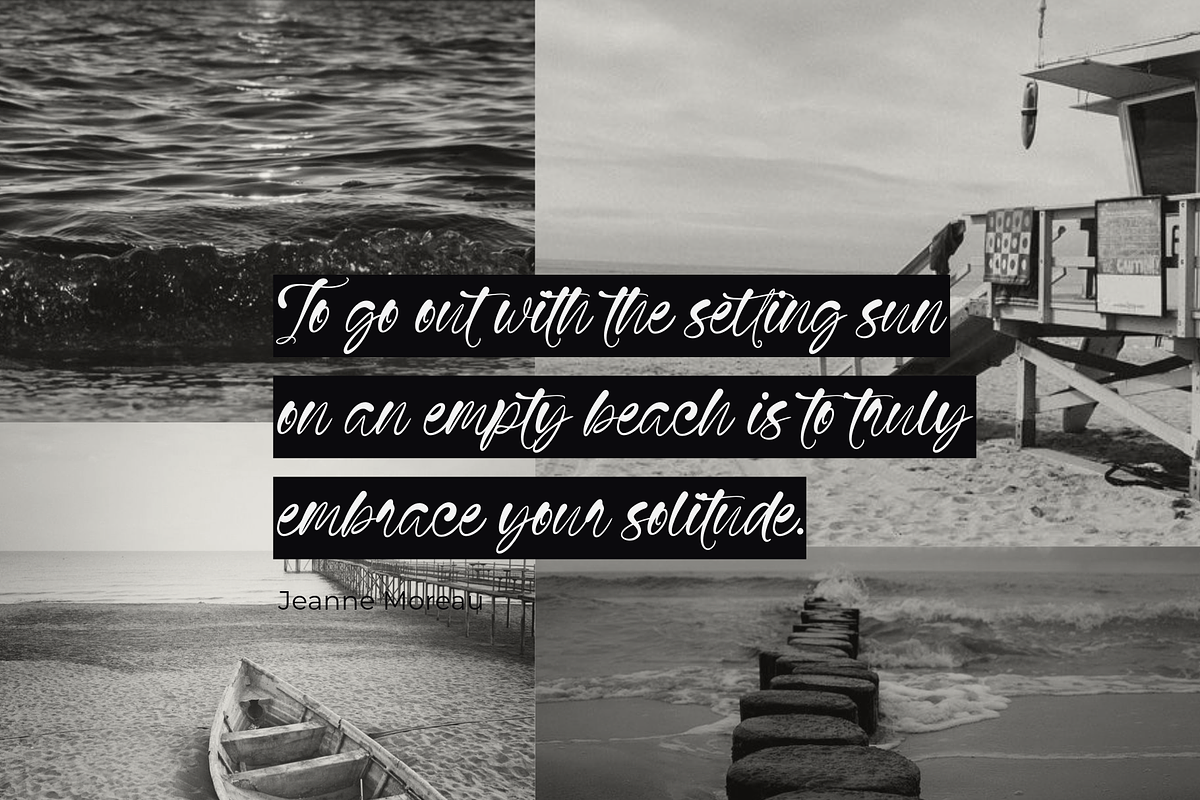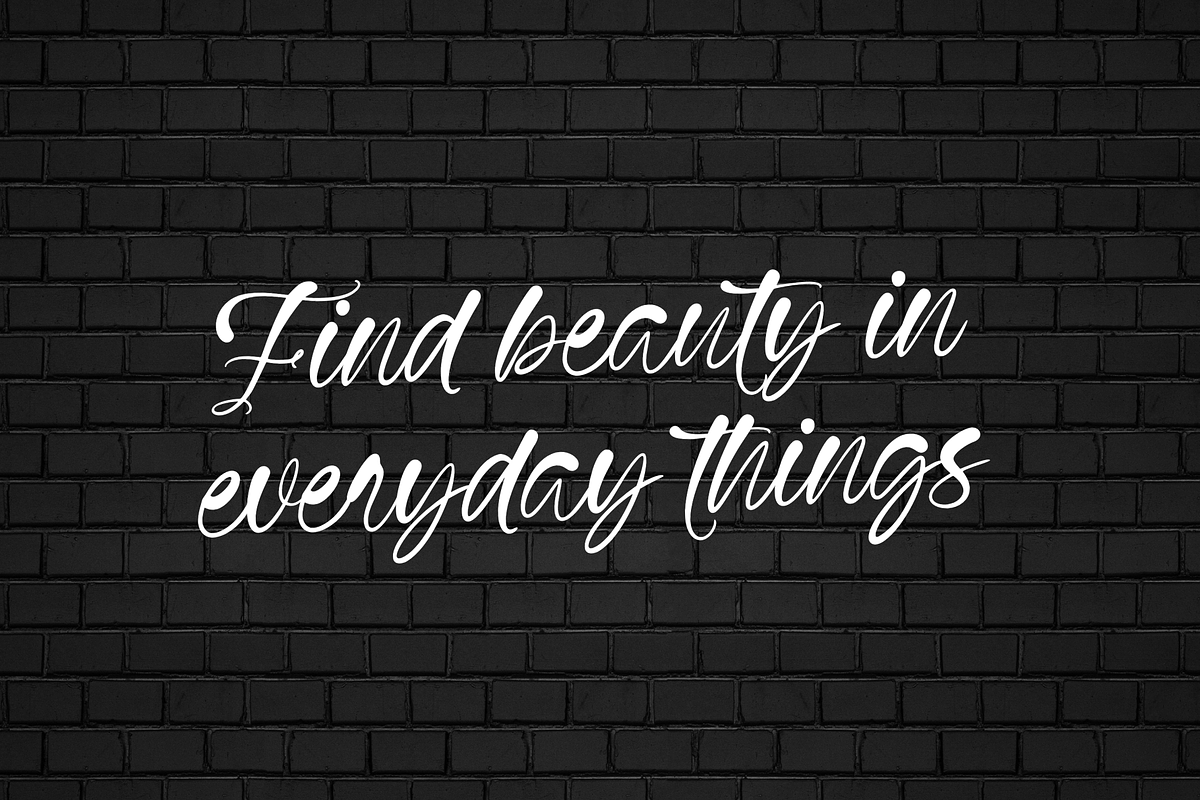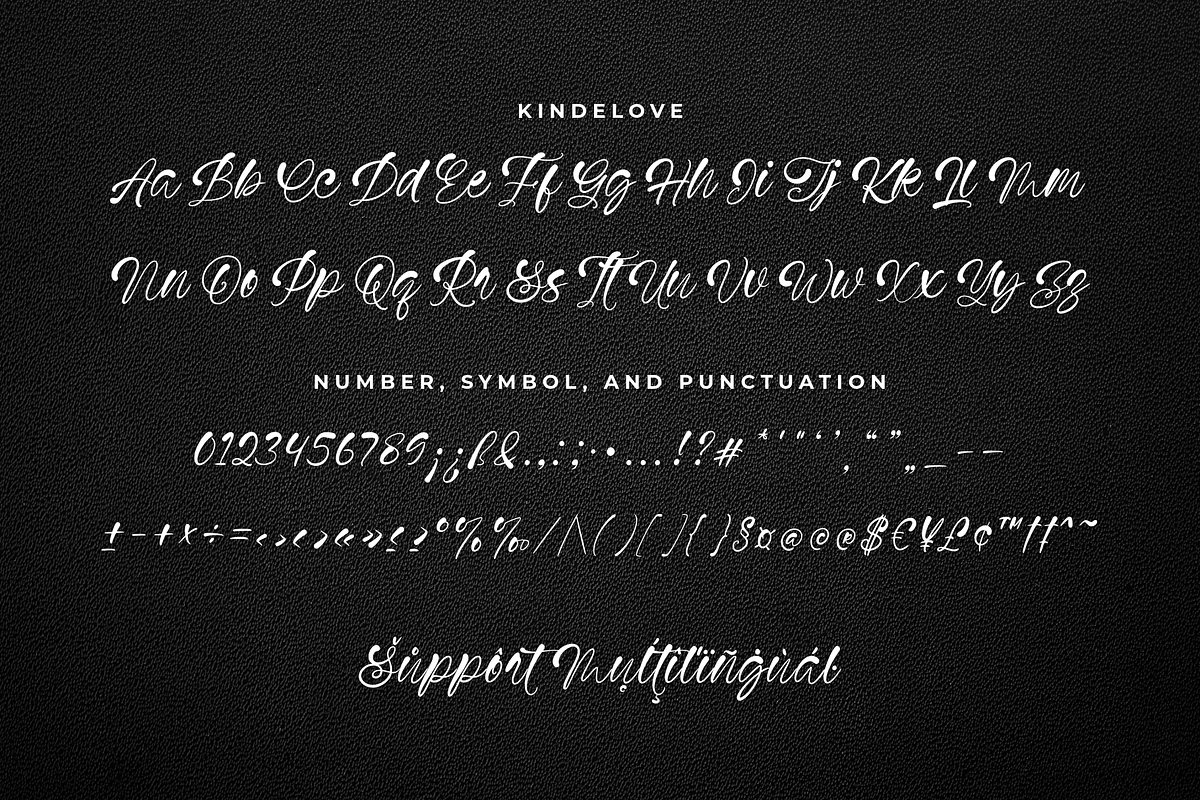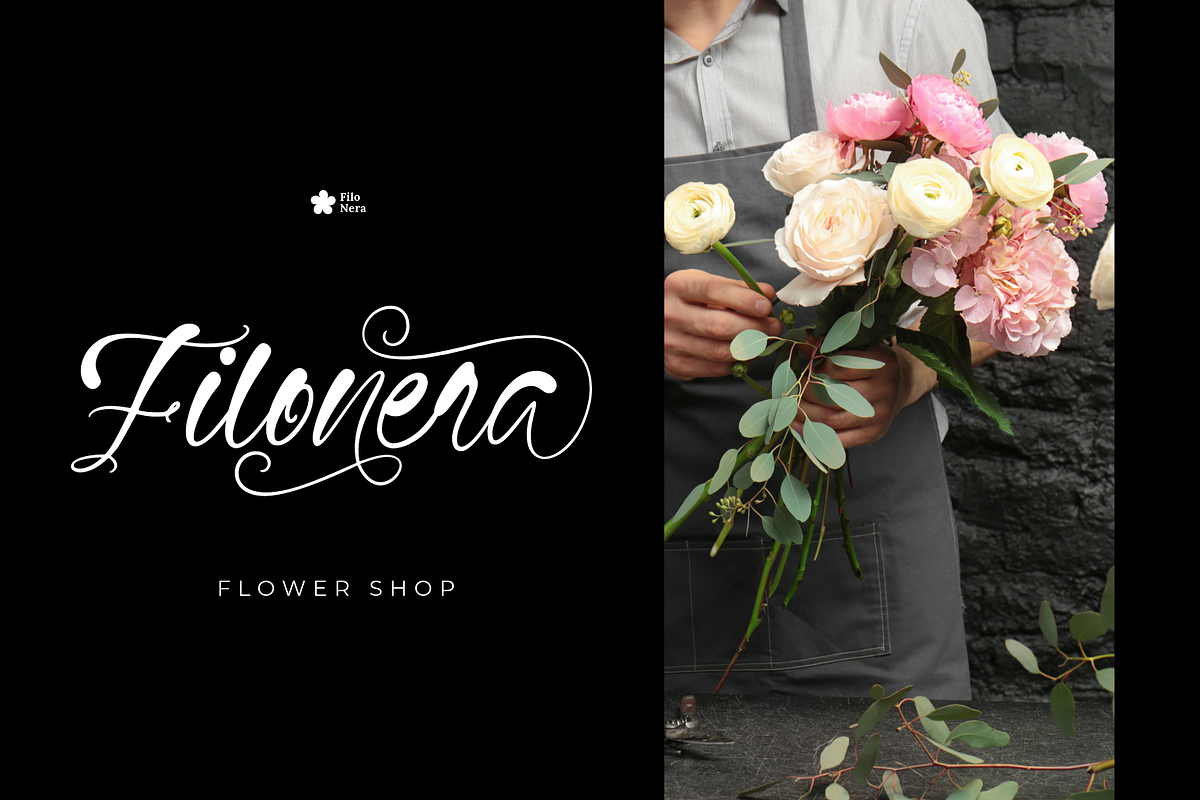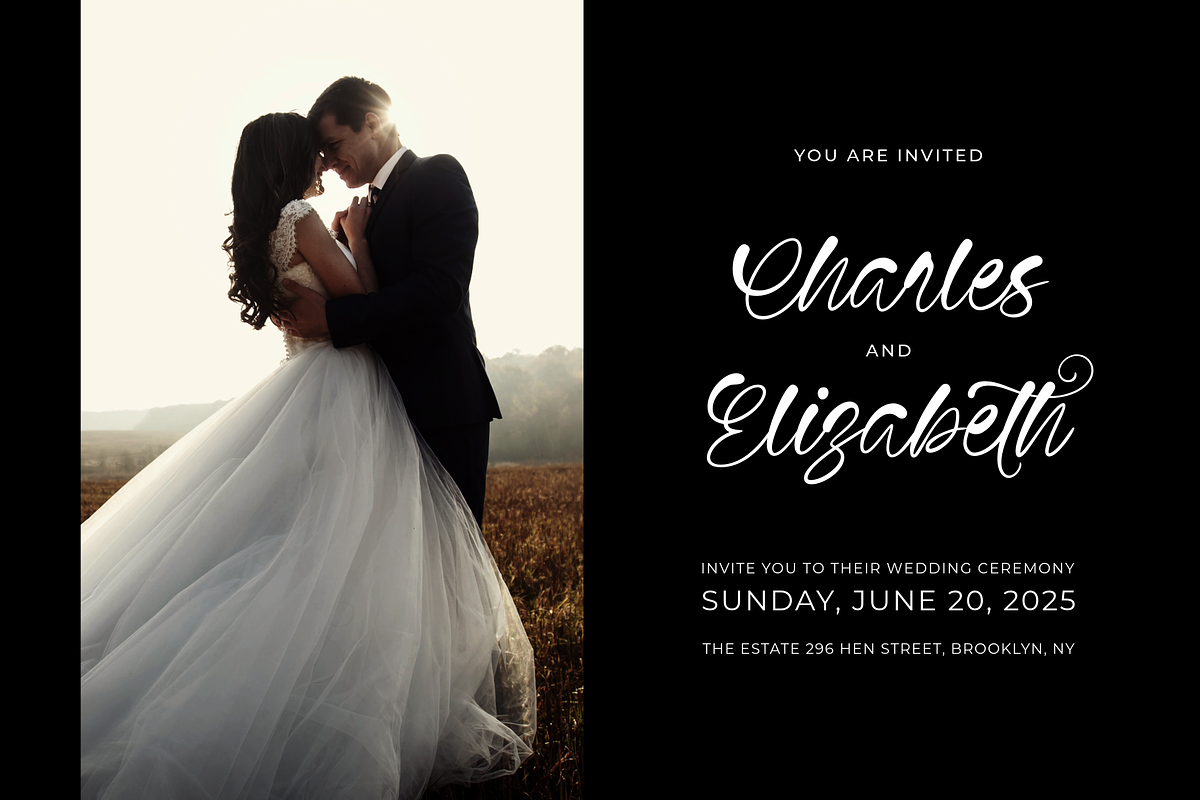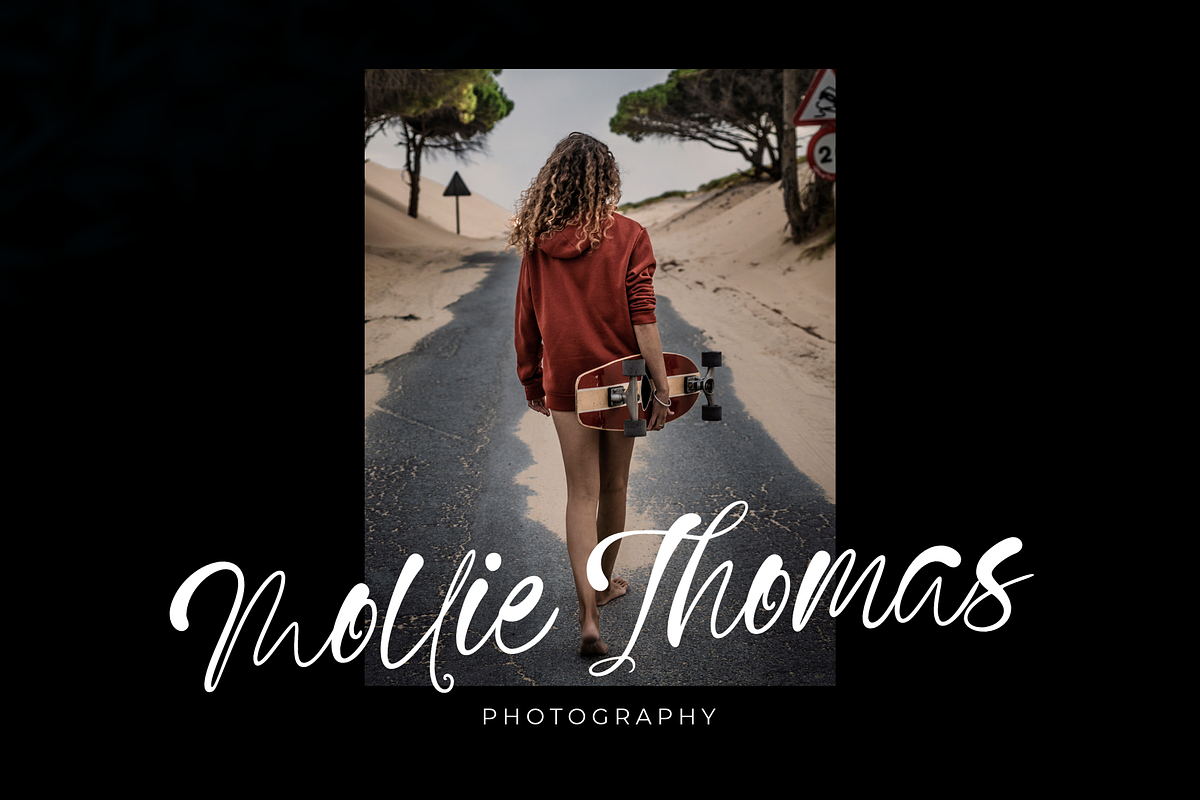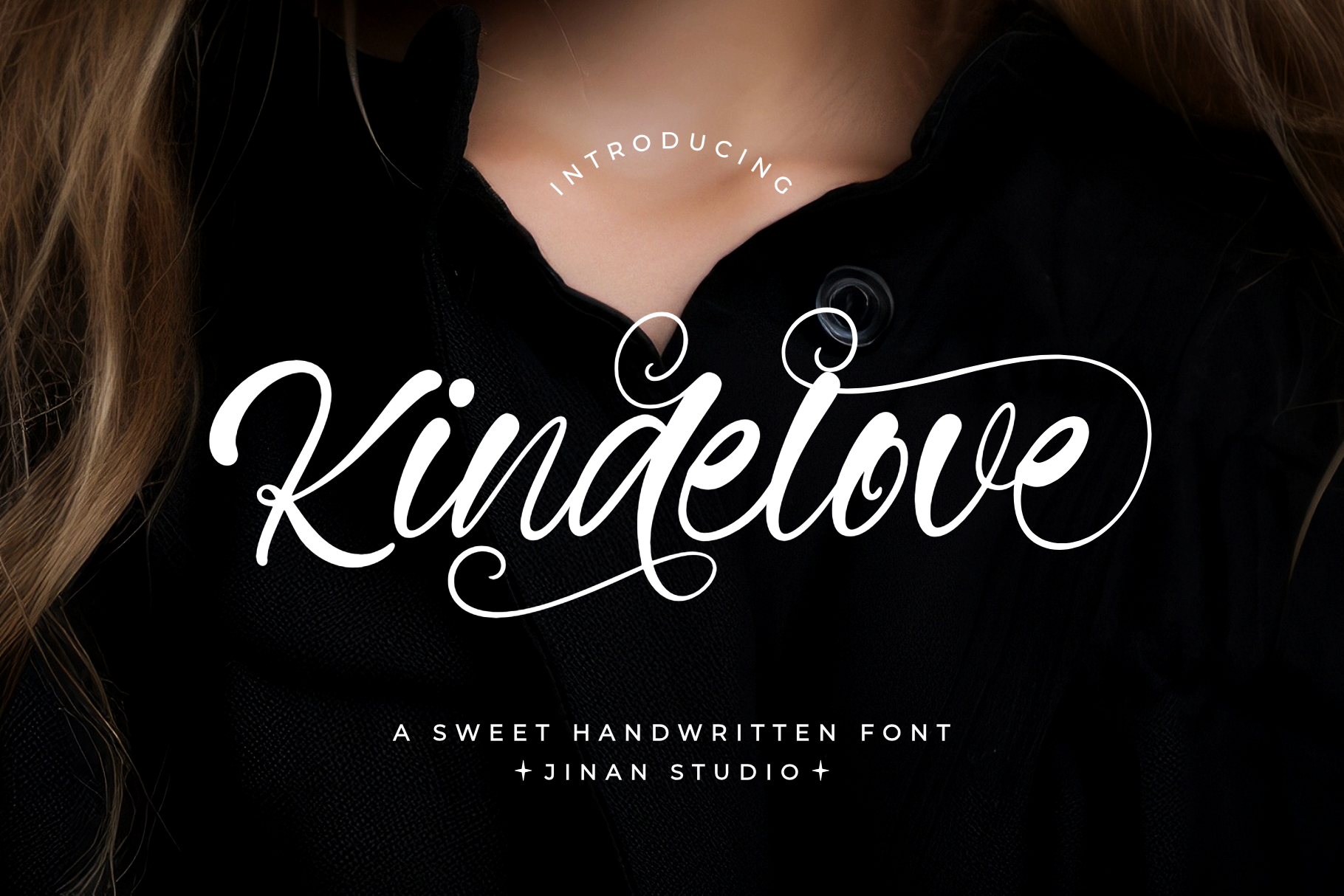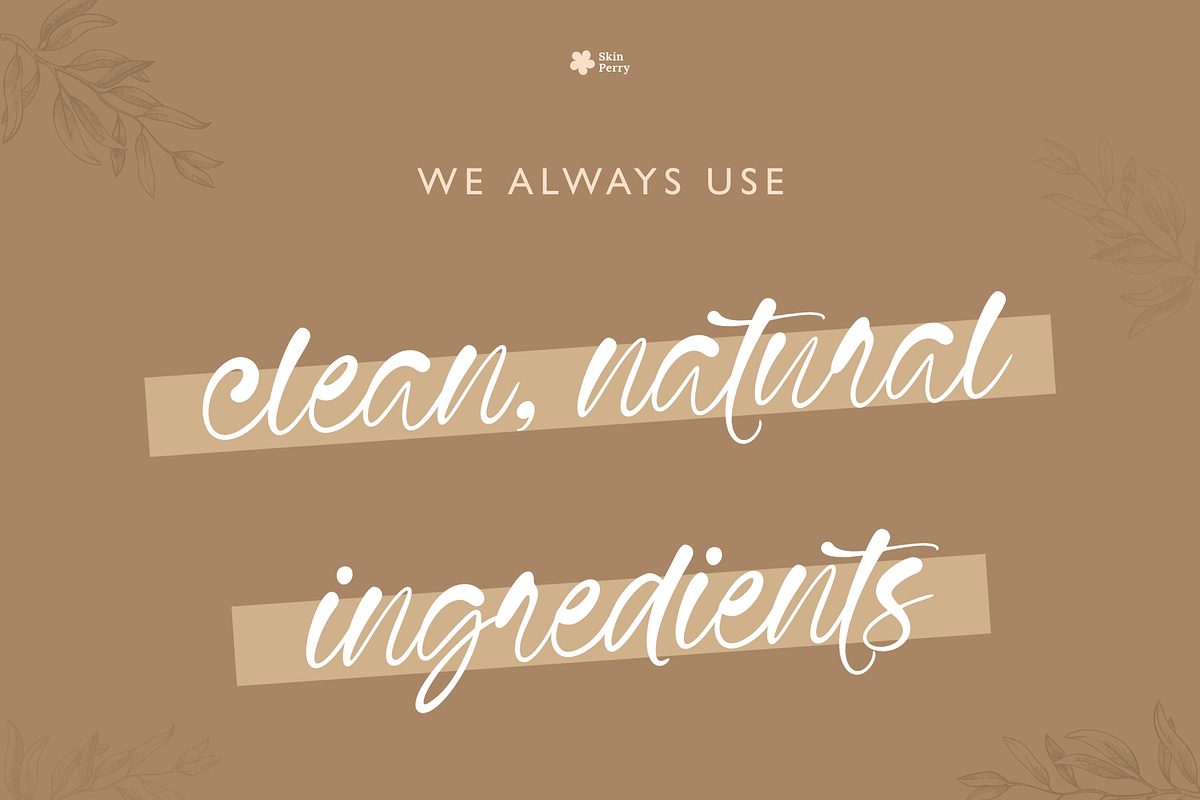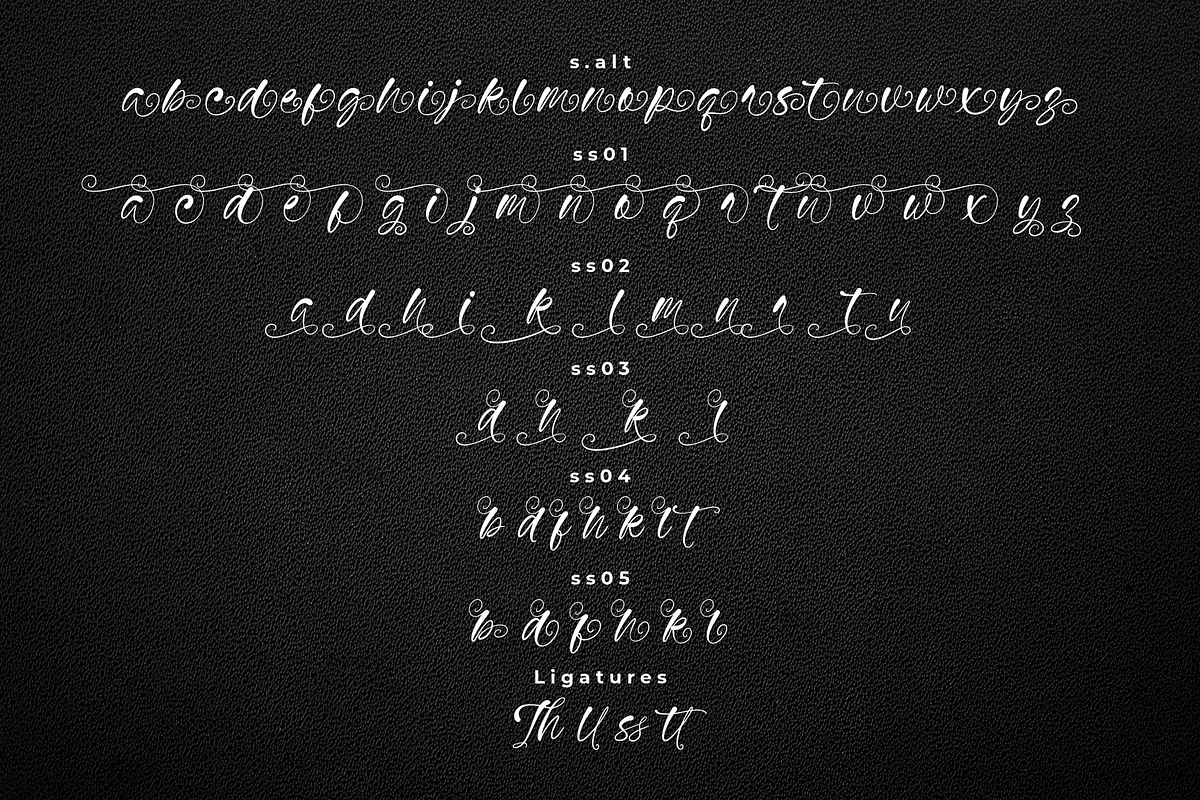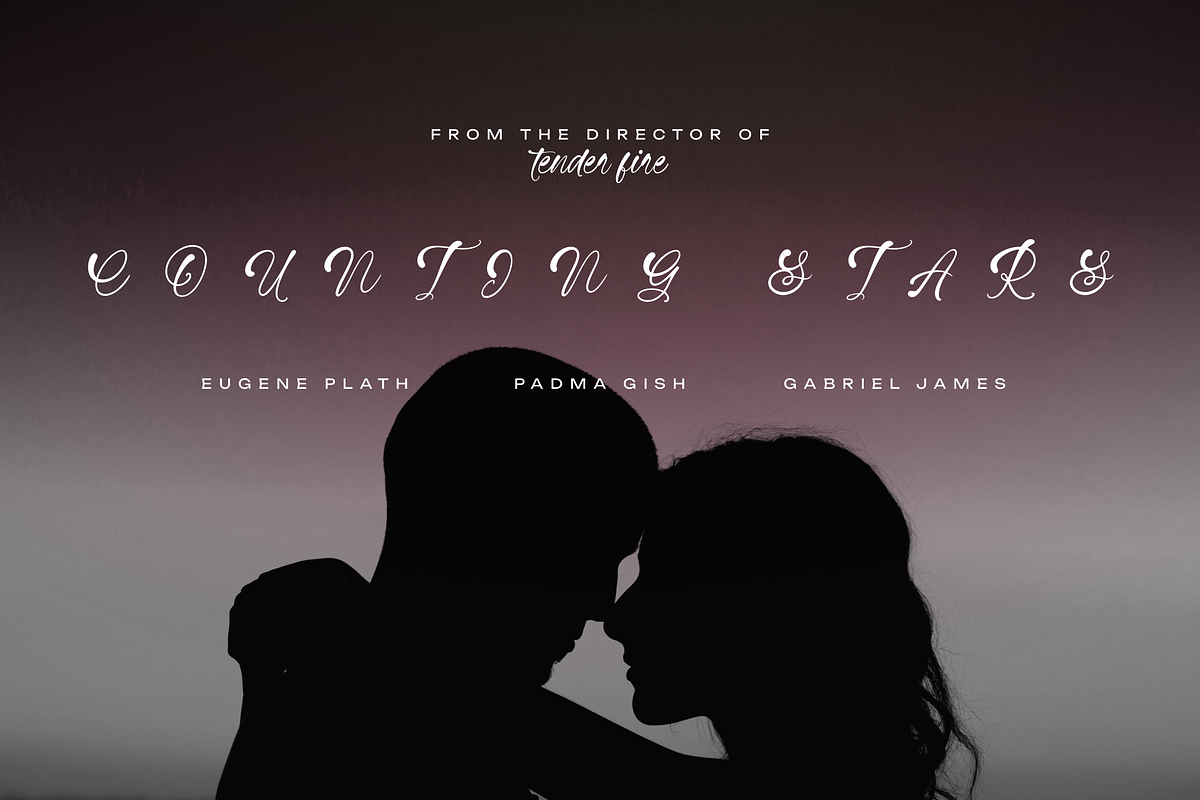
Kindelove - A Handwritten Font
Welcome to the breathtaking world of Kindelove, a handcrafted font that brilliantly blends sweetness with sophistication. Infused with elegant swirls and fluid lines, it reinvents the art of handwritten aesthetics, effortlessly elevating your projects with its charming allure. Kindelove seamlessly slides through a spectrum of applications, ornating everything from wedding invitations, heartfelt greeting cards to branding elements with its graceful strokes. The intrinsic charm of Kindelove’s natural, free-flowing design infuses each letter with a deeply personal feel, making it an exceptional choice when you wish to relay warmth, sincerity, and a dash of creative elegance. Reveal the power of a handwritten note, with Kindelove, where sophistication meets charm.
- A set of uppercase and lowercase glyphs
- Number, symbol, and punctuation
- Alternates and Ligatures